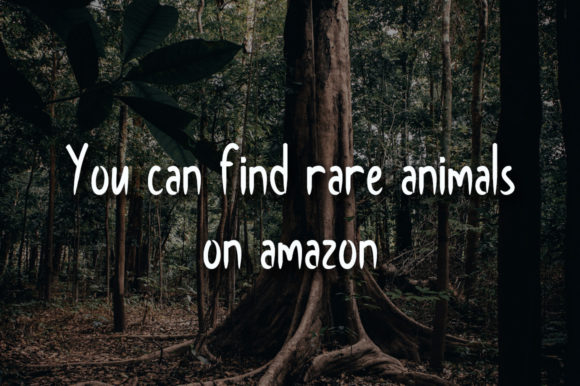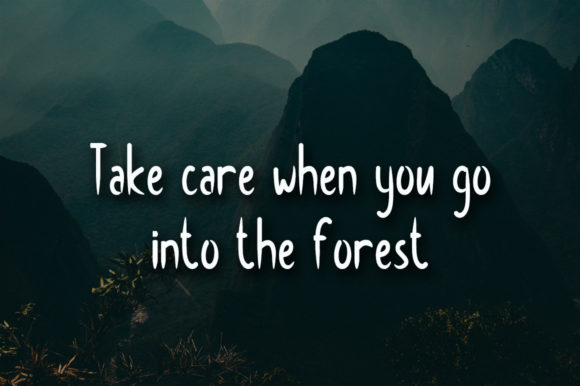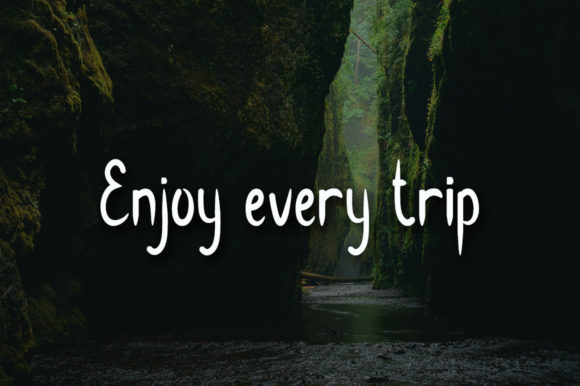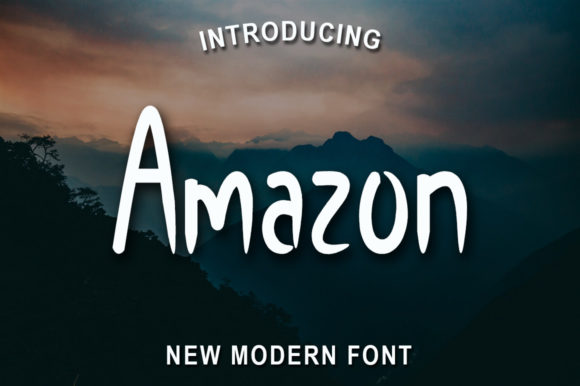
Discover the Versatility of Amazon Font: Elevate Your Designs with a Beautiful Sans Serif Font
Are you a designer, craftsperson, or simply someone who loves to dabble in creative projects? If so, you’re likely always on the lookout for the perfect font to give your work that extra special something. Look no further than the Amazon Font, a stunning sans serif font designed to enhance a wide range of projects, from logos and books to movies and watermarks.
What is Amazon Font?
The Amazon Font is a specially crafted sans serif font that boasts a clean, modern aesthetic. Its sleek lines and effortless style make it the perfect choice for anyone looking to add a touch of sophistication to their designs. Whether you’re working on a professional project or simply want to add some flair to your personal creations, this font is sure to impress.
Key Features of Amazon Font
- Versatility: The Amazon Font is incredibly versatile, making it suitable for a wide range of projects, including logos, books, movies, watermarks, and more.
- Clean Design: The font’s clean, sans serif design ensures that your text remains clear and easy to read, even at small sizes.
- Modern Aesthetic: The Amazon Font’s modern aesthetic makes it perfect for designers and craftspersons who want to give their work a fresh, contemporary look.
- Ease of Use: This font is incredibly easy to use, making it accessible to designers and craftspersons of all skill levels.
Uses for Amazon Font
The Amazon Font’s versatility is one of its standout features, making it suitable for a wide range of projects and applications. Here are just a few ideas to get you started:
- Logos: Create a professional, eye-catching logo for your business or brand with the Amazon Font.
- Books and E-books: Add a touch of elegance to your book or e-book with the Amazon Font, perfect for titles, headings, and body text.
- Movies and Videos: Use the Amazon Font to add a modern, cinematic touch to your movie or video titles, subtitles, and credits.
- Watermarks: Protect your images and designs with a stylish watermark featuring the Amazon Font.
- Crafting and Scrapbooking: Add a personal touch to your crafting and scrapbooking projects with the Amazon Font, perfect for journaling, titles, and embellishments.
Tips for Using Amazon Font